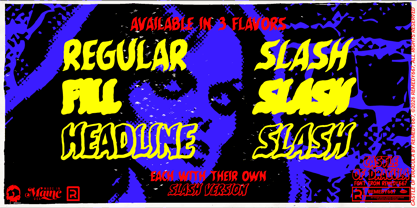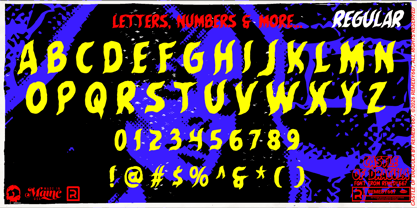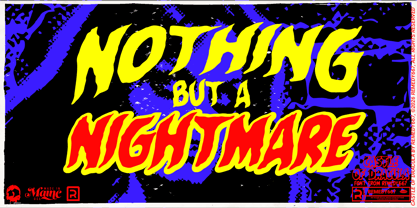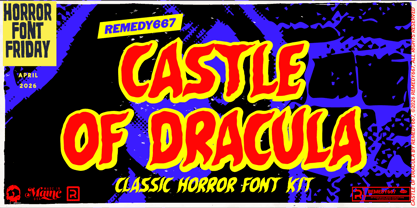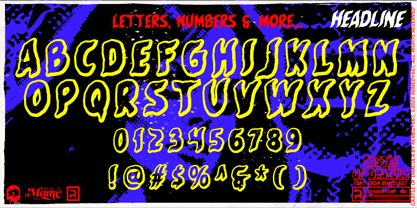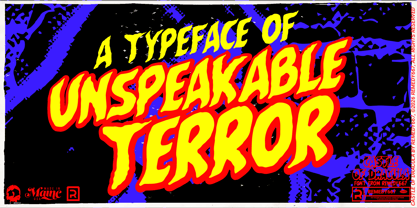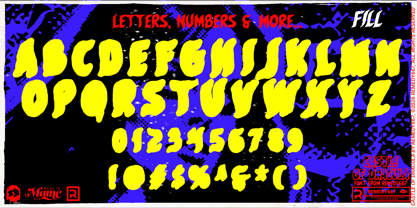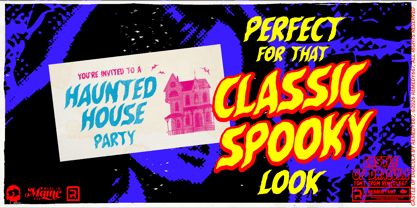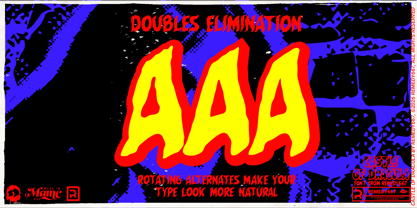
Castle of Dracula 667
by Remedy667
The Castle of Dracula 667 Font Family was designed by Nick Polifroni and published by Remedy667. Castle of Dracula 667 contains 6 styles and family package options. More about this family
Welcome, foolish mortals, to the Castle of Dracula! Inspired by the fang-filled fury of Where Monsters Dwell #17 (1972), this typeface rises from the comic crypt with all the theatrical terror of classic vampire tales. Each character looms like a castle spire, or vampire fangs, ready to strike!
Perfectly crafted for both print and digital nightmares, Castle of Dracula captures the essence of vintage horror titling with bold, readable bite. Subtle variations give your words a lifelike rhythm, making our next project come alive… even in the dead of night.
Features
• Classic vampire-inspired lettering with vintage horror appeal
• Rotating characters for natural, varied text flow
• Strong readability for both print and digital use
• Multilingual support for worldwide nocturnal designs